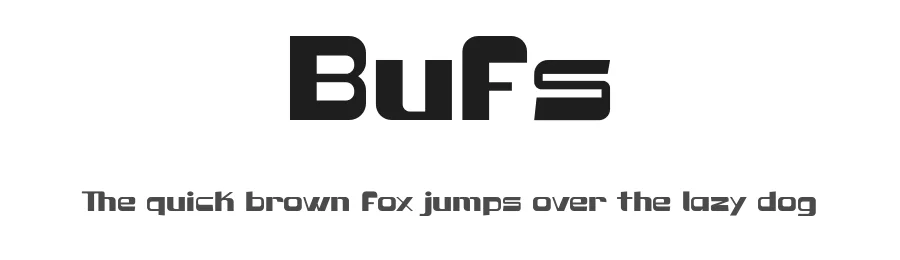
About Fluxion Font
Fluxion is a display font. It includes 100 glyphs, a regular weight, and OTF (CFF) format. Fluxion is free to download; check the license details on this page before commercial use. Display fonts like Fluxion work best for logos, posters, headlines, and eye-catching social media graphics.
Fluxion Font is a display font that shines as a display or heading face. Pair it with a clean sans-serif or serif font for body text โ the contrast creates a clear hierarchy while the two styles stay balanced and easy to read.
Fluxion Font
Fluxion Font is a display typeface, ideal for logos, invitations, branding, and creative projects.